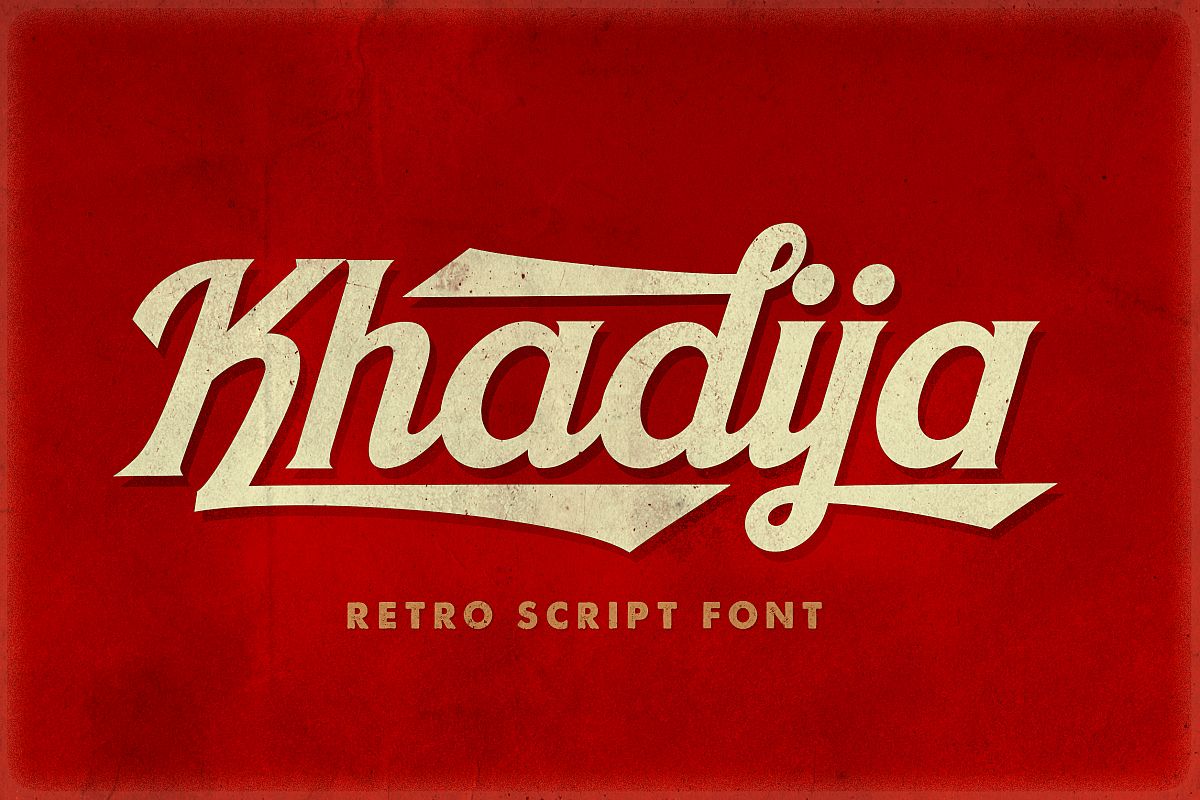
Khadija Script - 4 Fonts
This face is a new version of "Khadija Script" .
2 script font ,and 2 display font.
Khadija is bold, strong and powerfull typefaces with a touch of retro feels.
Good for creating logotype -Brand or Clothing Company-, titling, Poster/Flyer, for web or printing.
The Spurred Script Font contains over 380 glyphs with OpenType Features such as; Swash, Stylistic Alternate, Ligature, Contextual Alternate, Discretionary Ligature, Kerning + Multilingual Support.
And the text/display font ( unconnected script ) have only standard glyphs.